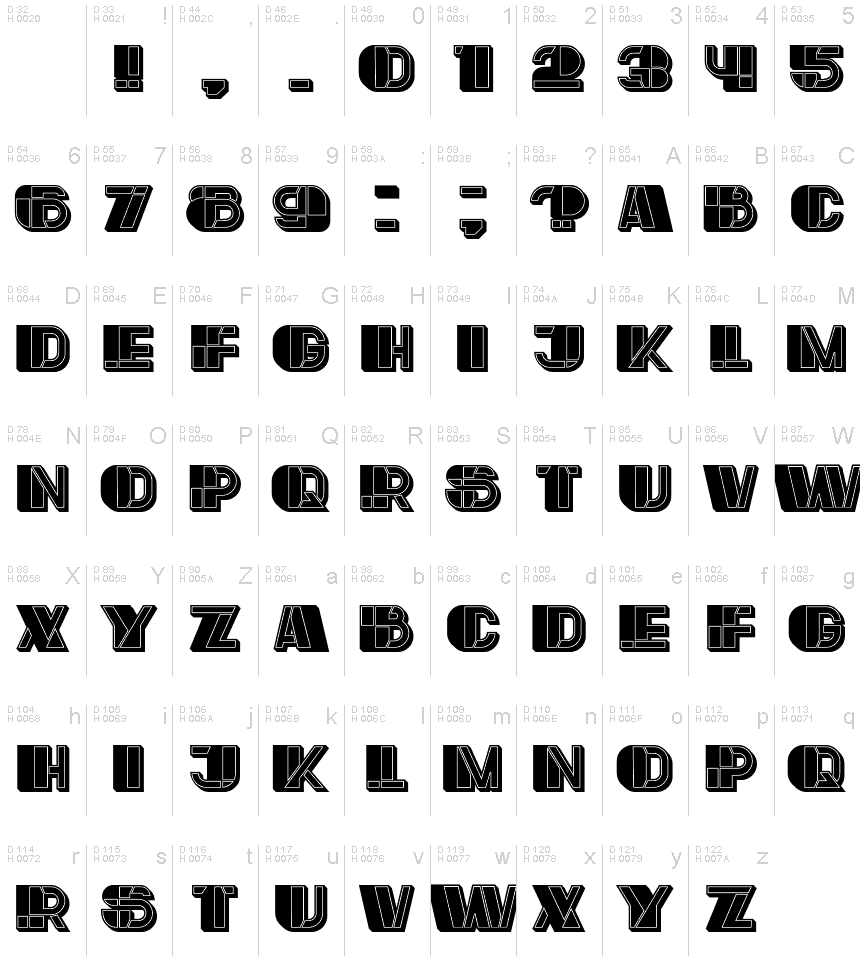
Reverse Filled Regular
"Reverse" is a cute and unique decorative font. Whether its for web, print, moving images or anything else Reverse will look spectacular.
Reverse Filled